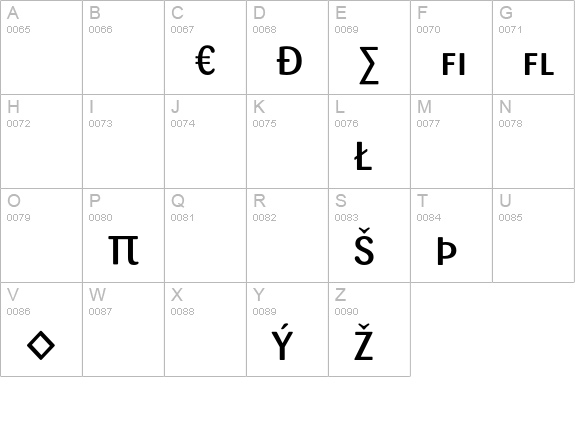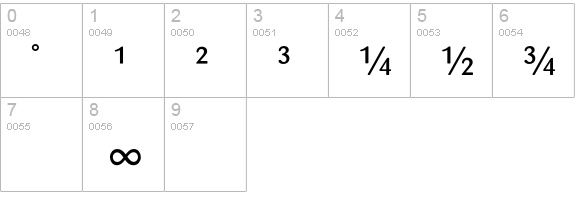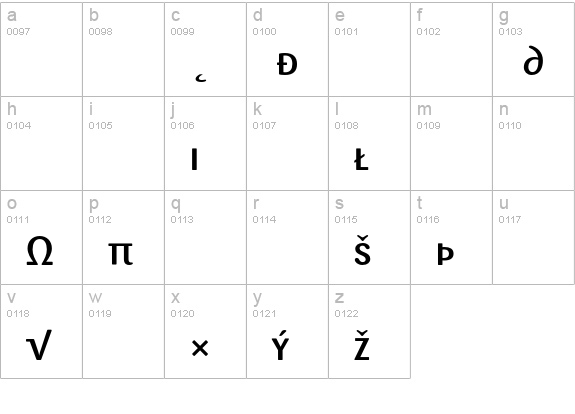
Sari-MediumCapsExp Font Details
Introducing Sari-MediumCapsExp, a stunning font that effortlessly combines elegance with a touch of modernity. This font is the perfect choice for those seeking a versatile and eye-catching typographic experience. With its medium weight and captivating medium capital letters, Sari-MediumCapsExp exudes a sense of sophistication and professionalism. Crafted with meticulous attention to detail, this font boasts smooth lines and well-defined curves, creating a harmonious balance between each letterform. Its unique design ensures legibility and readability without compromising on style. Whether used for headlines, logos, or body text, Sari-MediumCapsExp adds a distinctive flair to any project. One of the most exciting aspects of Sari-MediumCapsExp is that it is freely available to download at FontsMarket.com. This means that you can enhance your designs with this exceptional font without breaking the bank. Embrace the freedom of creativity and explore the endless possibilities that Sari-MediumCapsExp offers. Don't miss out on the opportunity to elevate your designs with this remarkable font. Download Sari-MediumCapsExp today from FontsMarket.com and experience the beauty and versatility that it brings to your projects.